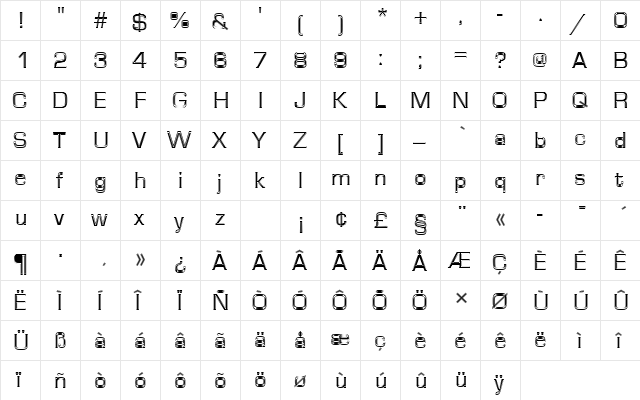
EurostileTRegIn1 Regular
Design Context for EurostileTRegIn1 Typeface
EurostileTRegIn1 offers clean, dependable letterforms without strong stylistic allegiance, making it a practical choice for designers who need flexibility.